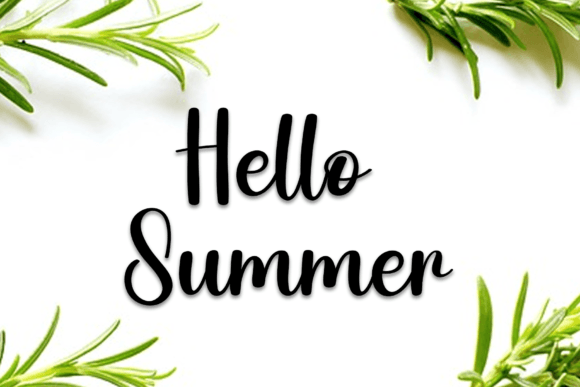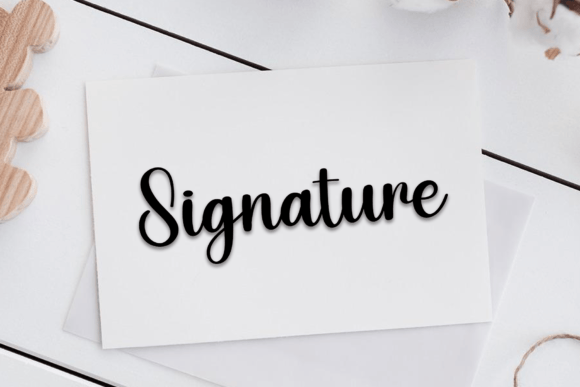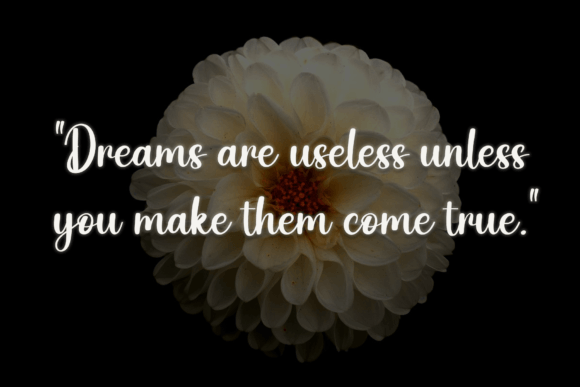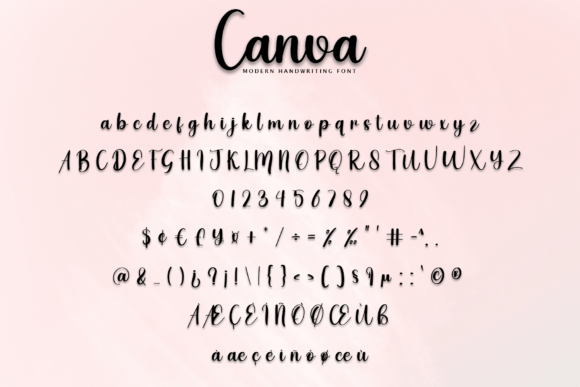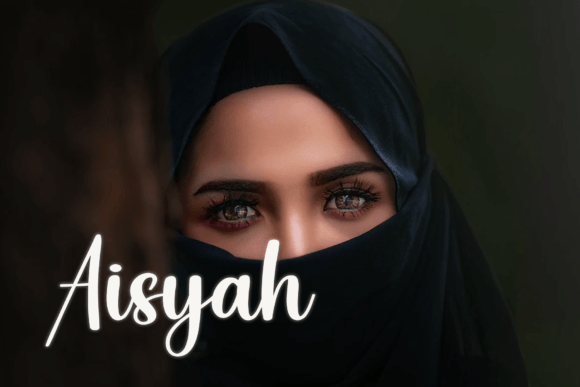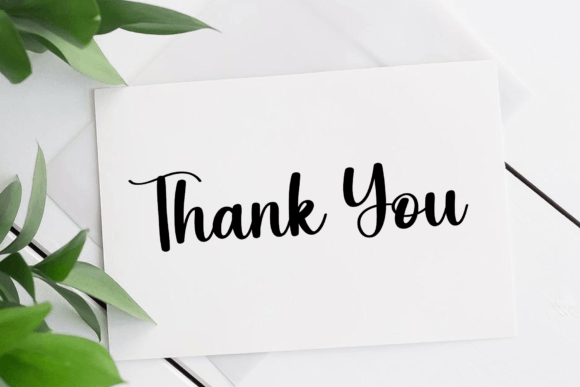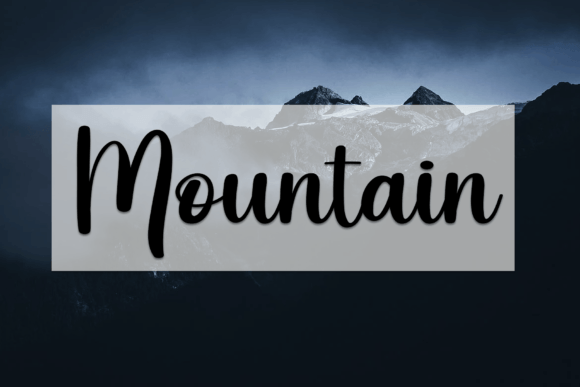
Canva Font
About Canva Font
Canva is a distinctive handwritten font characterized by its rounded letters and meticulous craftsmanship. It has been carefully designed to ensure it delivers the desired results for various creative projects. This versatile font is suitable for writing titles, invitations, letters, and a wide range of other products, adding a unique and charming touch to your designs.
The rounded letterforms of Canva create a friendly and approachable appearance, making it ideal for projects that require a warm and inviting vibe. Its versatility allows you to use it in different contexts, from digital graphics to printed materials, ensuring that your text stands out and captures attention.
Whether you’re working on event invitations, social media graphics, or any other creative endeavor, Canva’s round-lettered style adds a touch of creativity and personality to your text. Its uniqueness lies in its ability to convey a sense of playfulness while maintaining readability, making it suitable for a variety of applications.
Embrace the distinctive charm of Canva in your designs, and let its rounded and handwritten aesthetic enhance your creative projects. Whether you’re designing titles, invitations, or any other type of text-based content, Canva is sure to add a delightful and unique flair to your work, making it visually appealing and memorable to your audience.